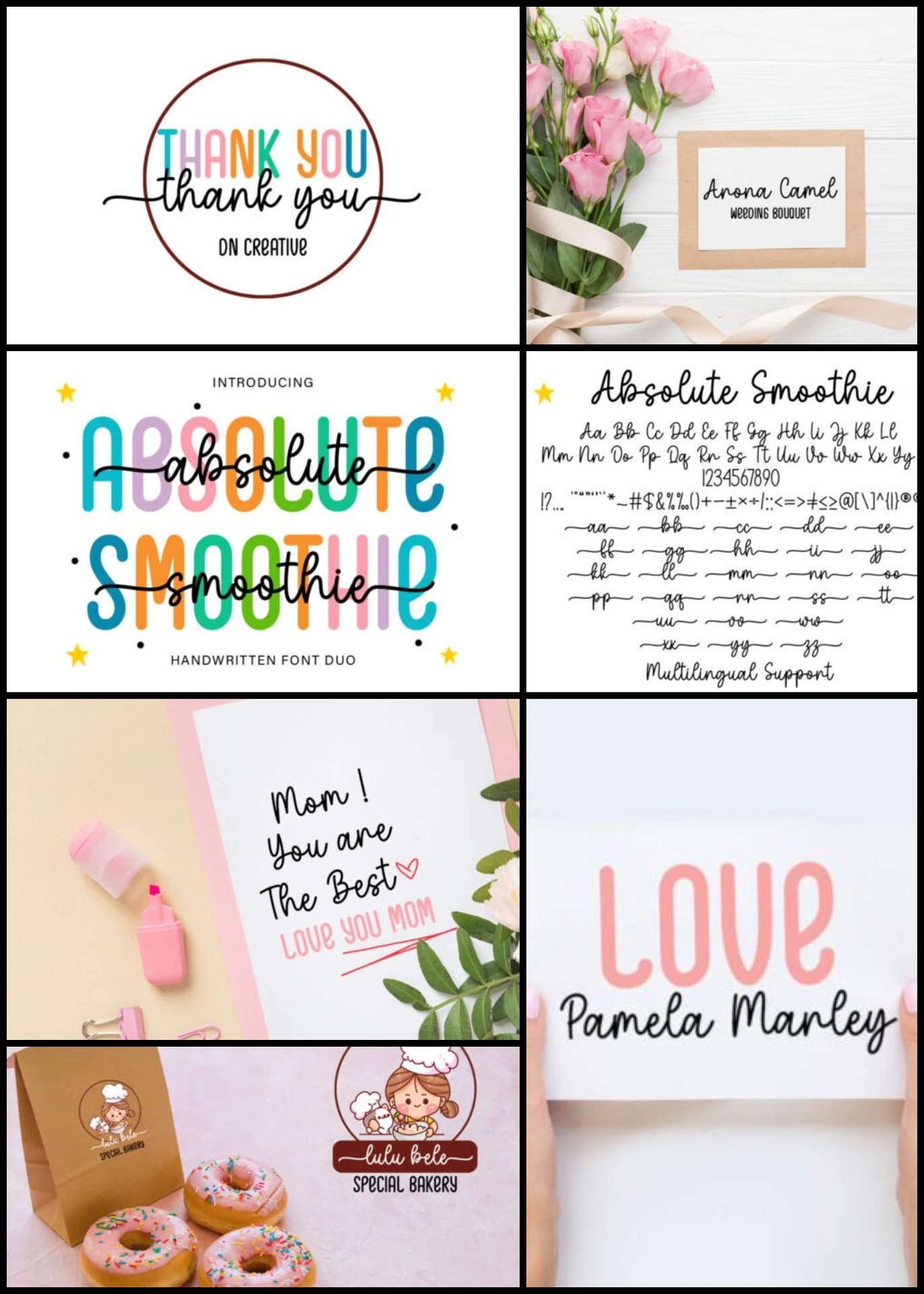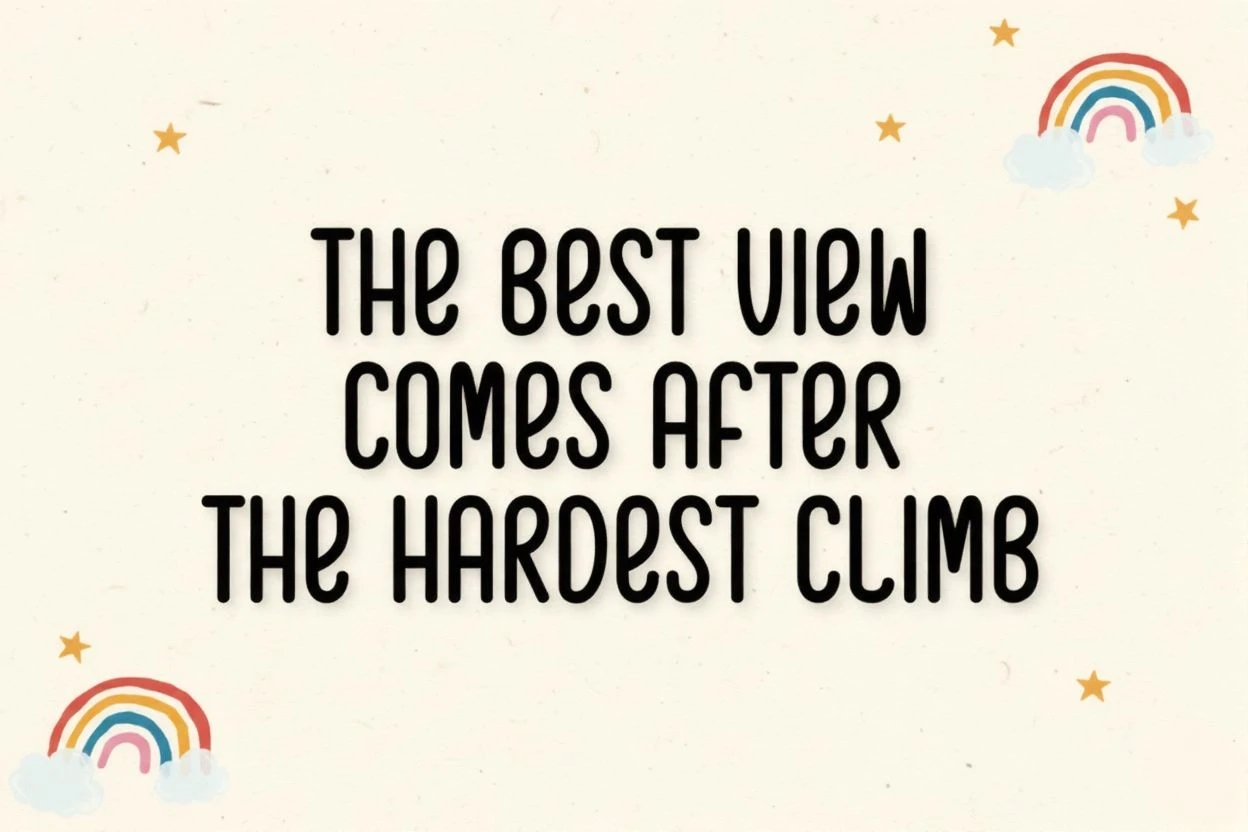
Absolute Smoothie Duo is a font pairing that mixes a handwritten script with a clean sans serif. The fonts work well together, making this set useful for all sorts of designs.
It’s great for things like branding, cards, invites, logos, social media, and printed materials. This stylish, romantic font brings a soft, creative feel to anything you’re working on. The smooth letters and nice ligatures give your work both personality and a professional look.
This font set makes sure your designs feel connected, polished, and emotional, whether it’s for Valentine’s Day, spring events, or a design project.